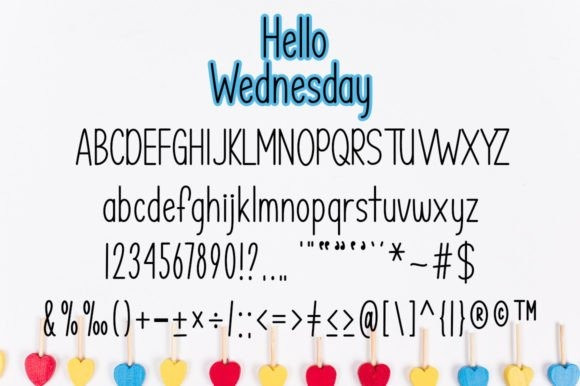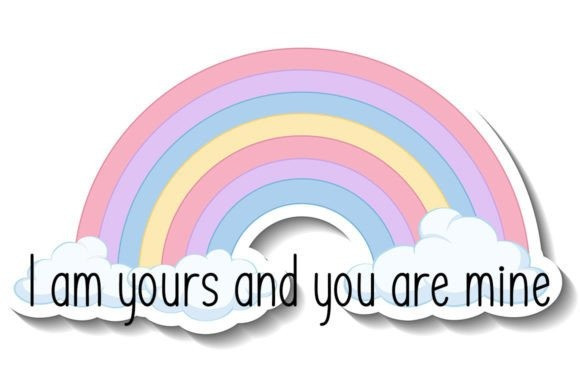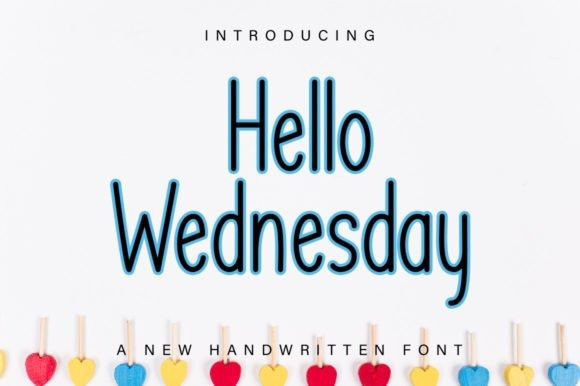
Hello Wednesday Font
Hello Wednesday is a minimalist and neat display font. It can easily be matched to an incredibly large set of projects, so add it to your creative ideas and notice how it makes them stand out!